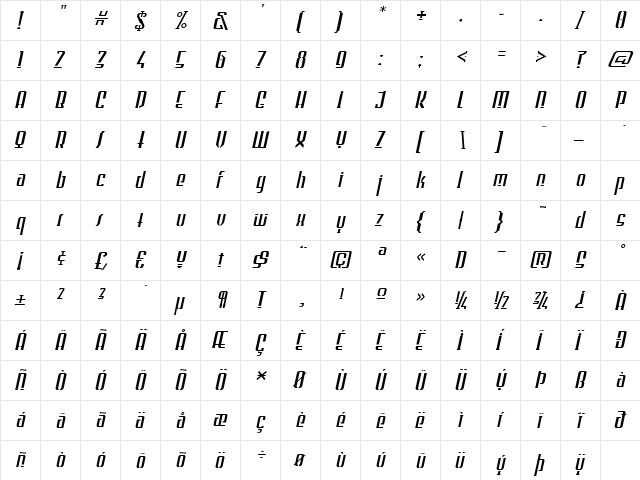
WILD1 Firstvision Tekkst Bold Italic Font Preview
| Foundry | The Fontry tm |
Design Context for WILD1 Firstvision Tekkst Typeface
WILD1 Firstvision Tekkst offers clean, dependable letterforms without strong stylistic allegiance, making it a practical choice for designers who need flexibility. The slanted form adds forward momentum and visual energy. Its bold stroke weight gives it real presence on the page.
Pro Tip: Try WILD1 Firstvision Tekkst for annotation and caption copy alongside an upright companion — the contrast in angle creates a dynamic but ordered typographic system.